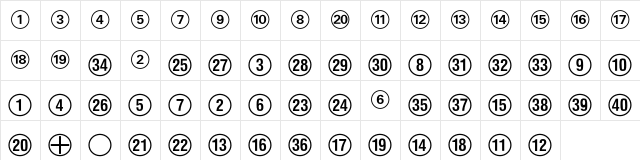
Numerics P01
Style: P01
Numerics Family
Numerics P01
Design Context for Numerics
Numerics is a composed and adaptable typeface that performs quietly and consistently across a wide range of design contexts.